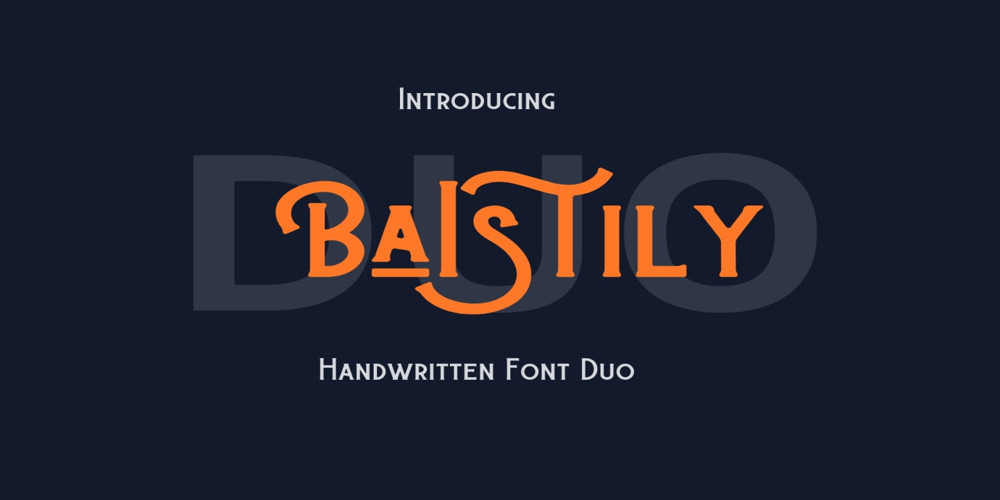
Baistily Font Family was designed by Chank Diesel and published by Adita Fonts. Baistily contains 2 styles and family package options. Baistily is a new display font duo with clean characters.It’s a delightful font duo that comes the clean serif with a playful script, allowing you to create the perfect headlines, signs, posters, cards and much more.